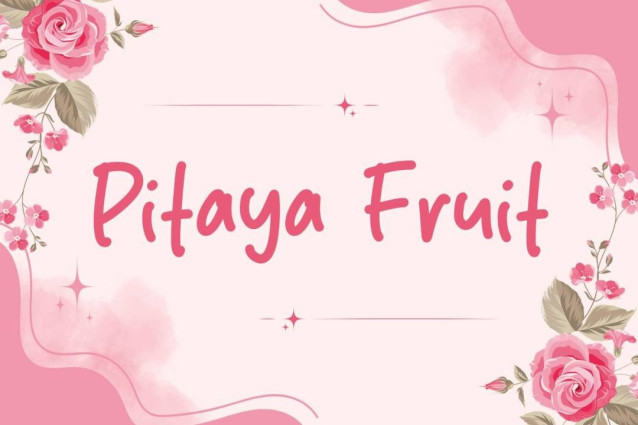
Pitaya Fruit Font
Pitaya Fruit Font is a simple and friendly handwritten font. Its natural and unique style makes it incredibly fitting to a large pool of designs. The only limit is your imagination!